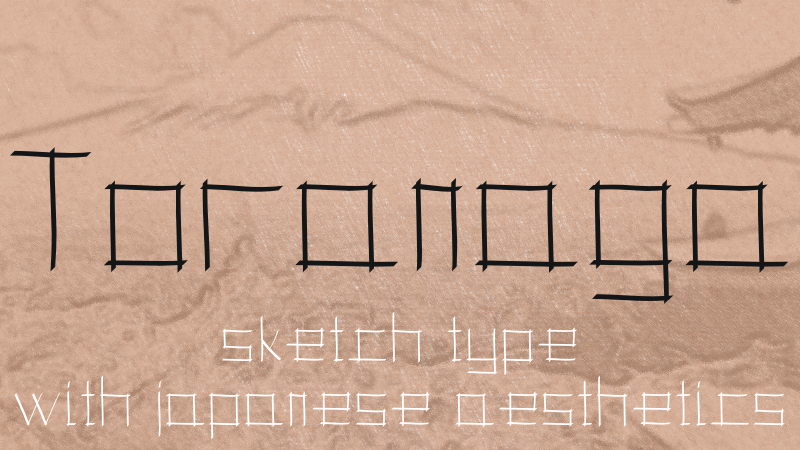
Toranaga Font
Toranaga font is a sketch typeface made out of sticks inspired by old Japanese writings. Toranaga can be used to give an traditional Japanese feel to your designs.